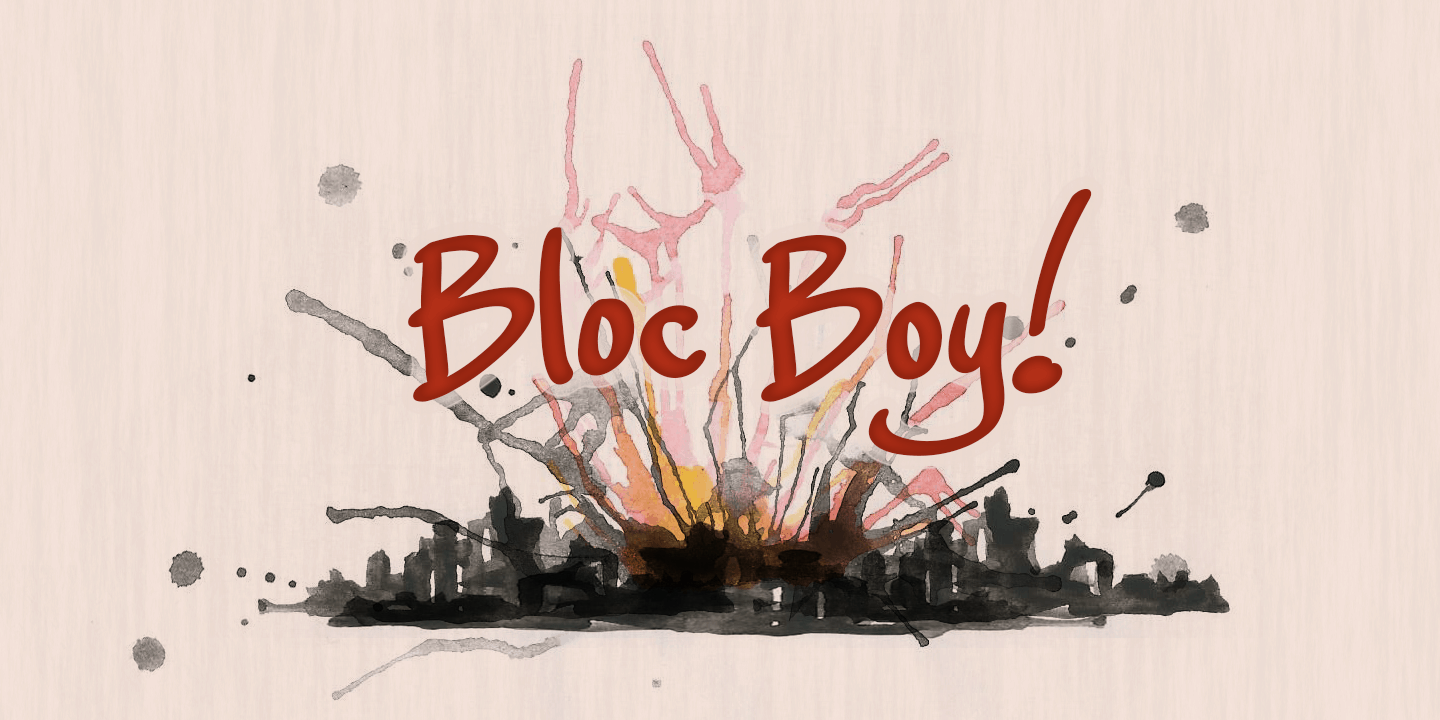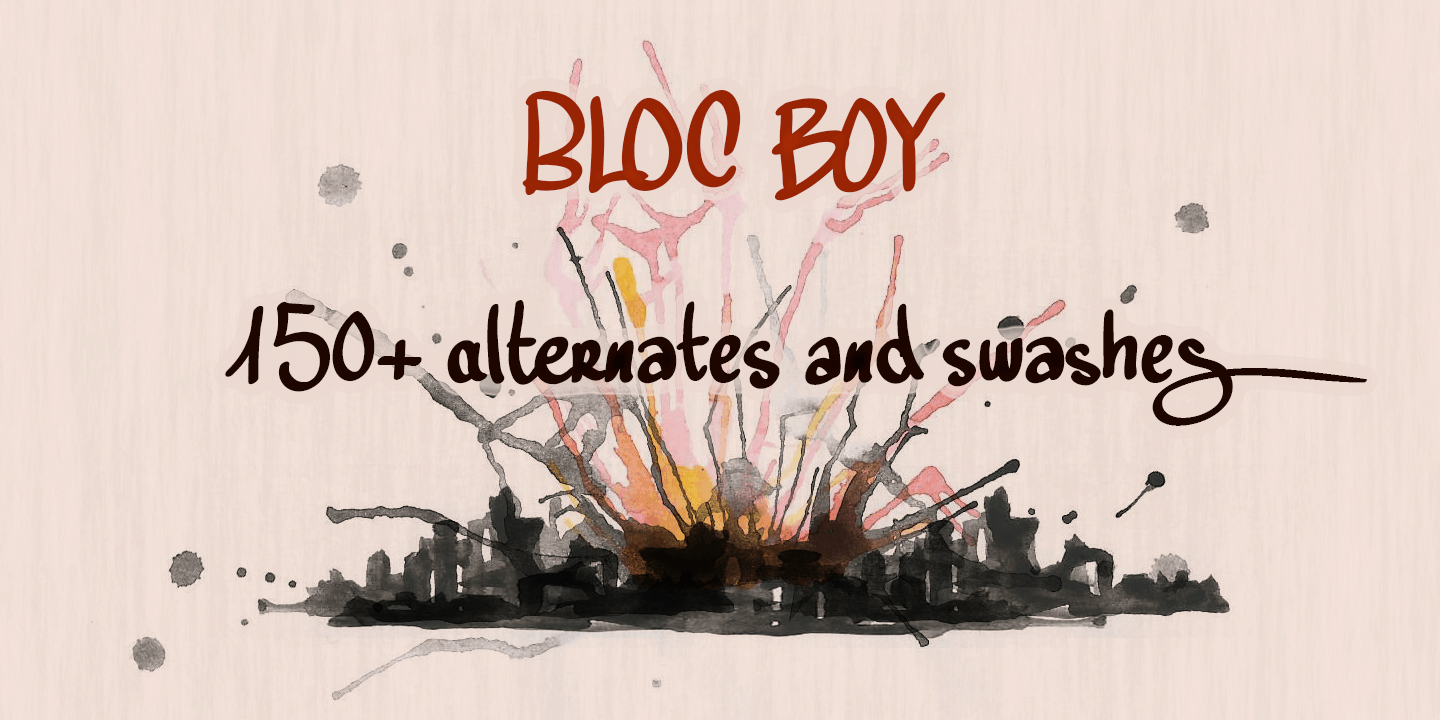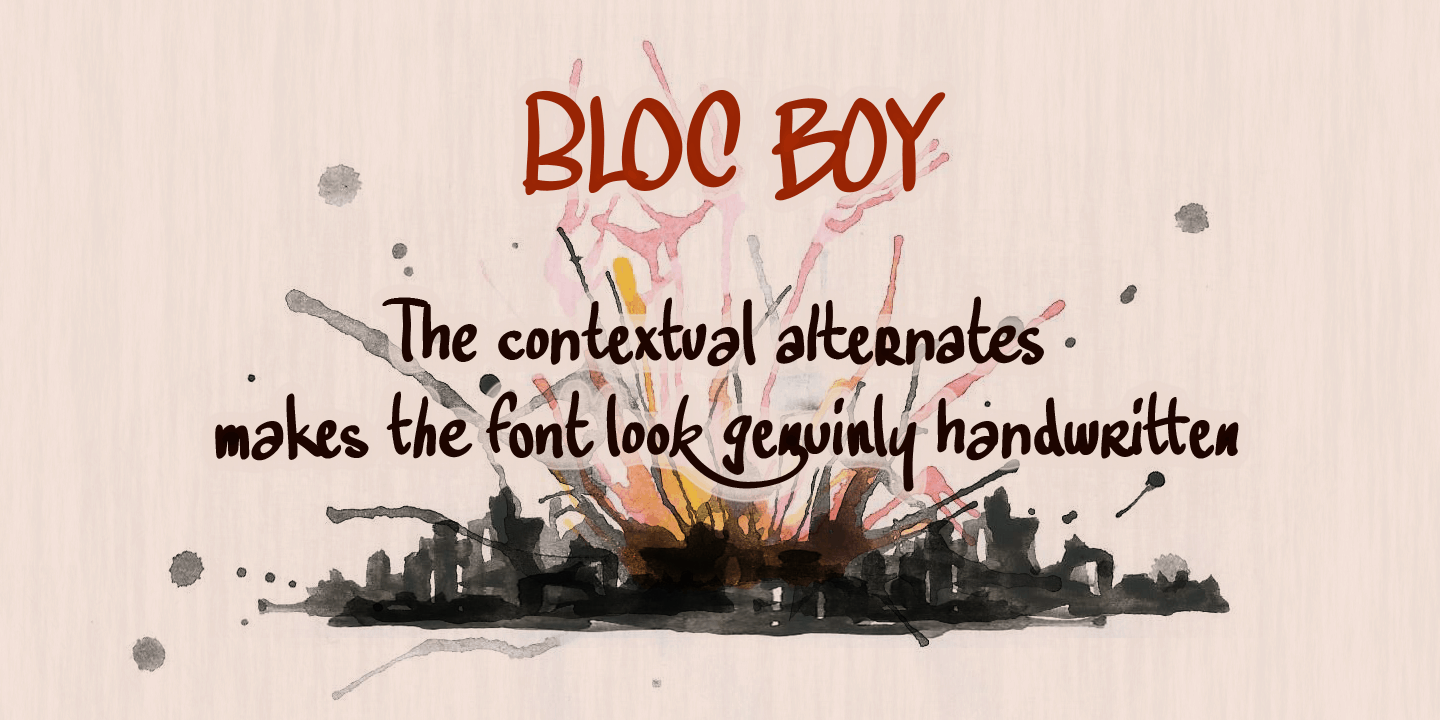
Bloc Boy
Bloc Boy is a handwritten typeface by Måns Grebäck.
Its 150+ alternates and swashes gives it great variety, and the contextual
alternates ensures the font a genuinely handwritten look.